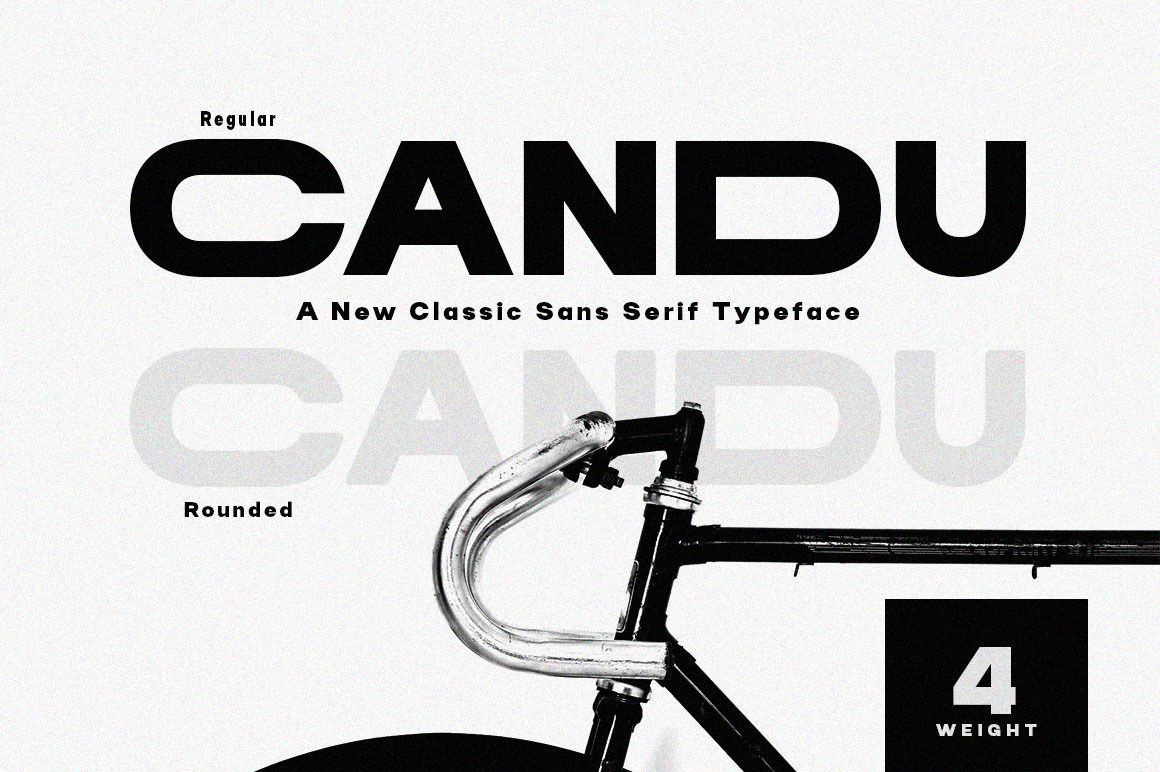
Candu Typeface
Candu is a strong bold sans serif, with solid lines, paired with bold yet soft rounding. Opium will turn any creative idea into your true work of art! It's perfect for logotypes, signage, branding, apparel, posters, social media, headlines, titles, large format prints and more.
- 4 Font weight
- Characters with accents
- Supports Multiple Languages